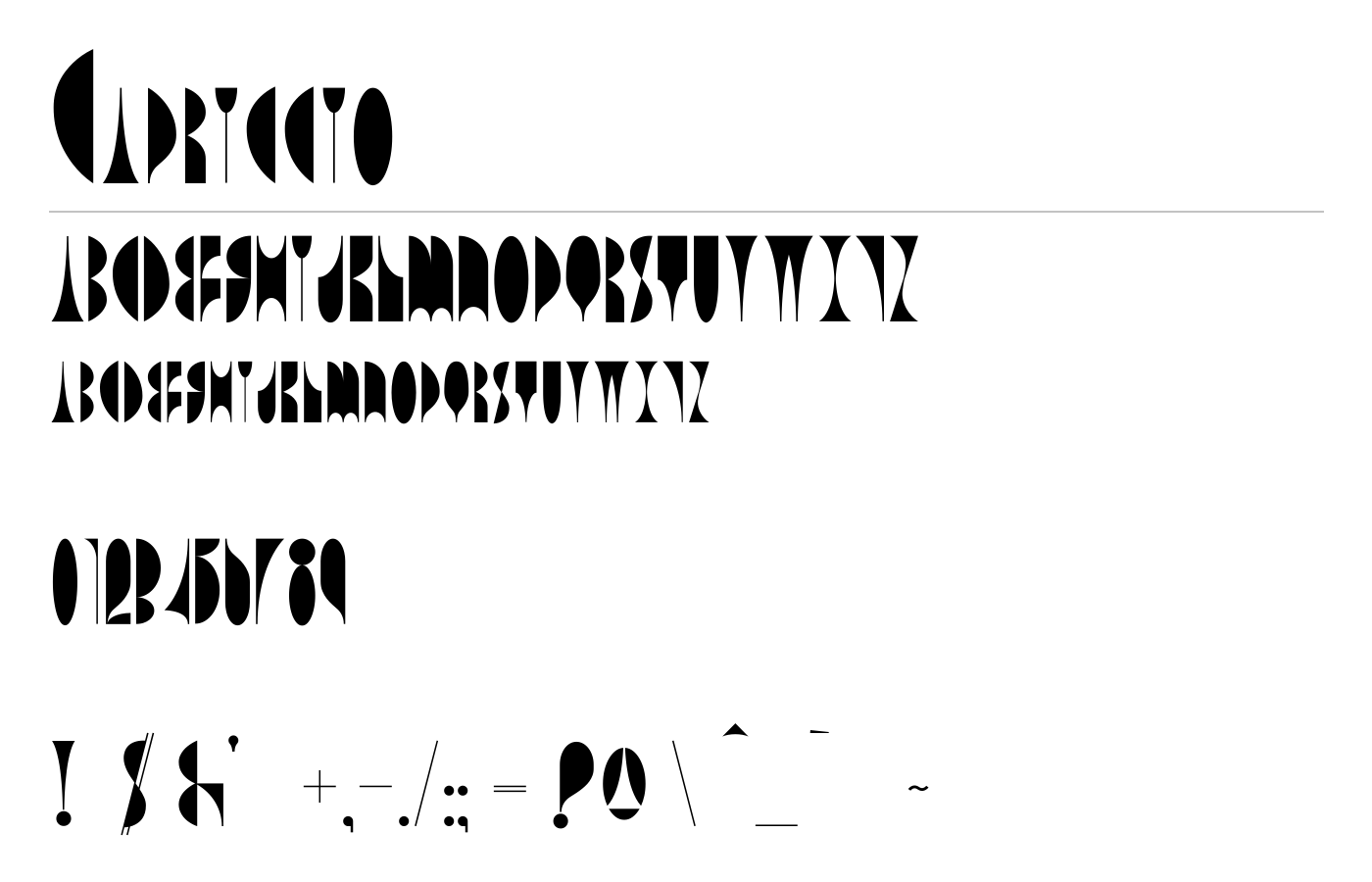
Capriccio is a bold, decorative serif font characterized by its dramatic contrast between thick and thin strokes, creating a striking geometric look with sharp, elongated serifs. Its unique, avant-garde shapes give it a modern yet artistic flair, making it perfect for eye-catching headlines, logos, and creative design projects where a strong visual statement is needed. This font works best in display use, adding a touch of sophistication and eccentricity to branding and editorial designs.
Capriccio Font
About Capriccio Font
| Font family | Capriccio Font |
| Release date | 2011-05-01 |
| Designer | Pedro Delgado Maqueda |